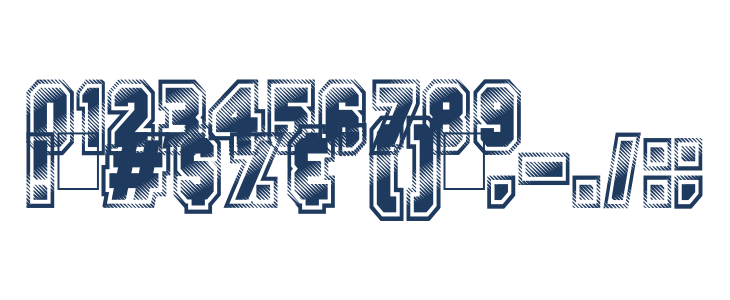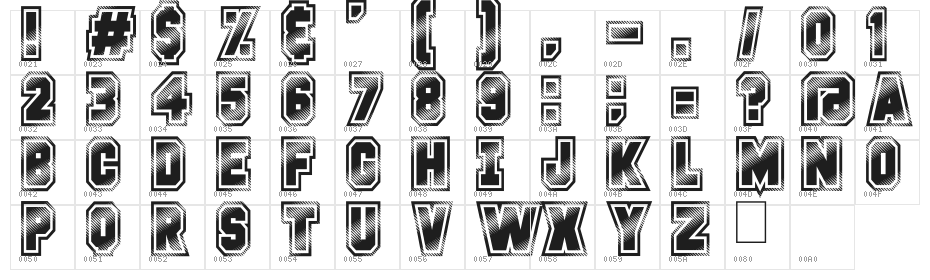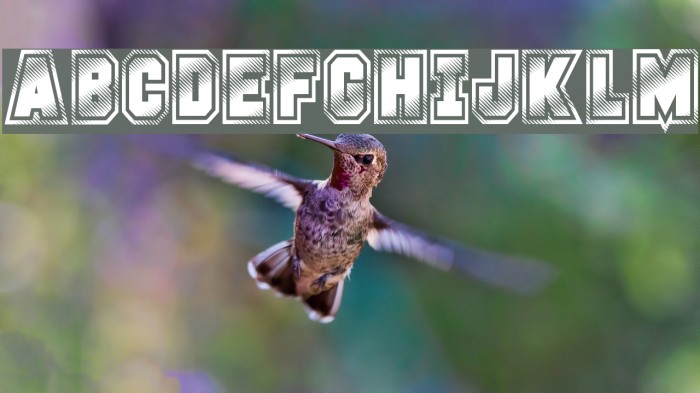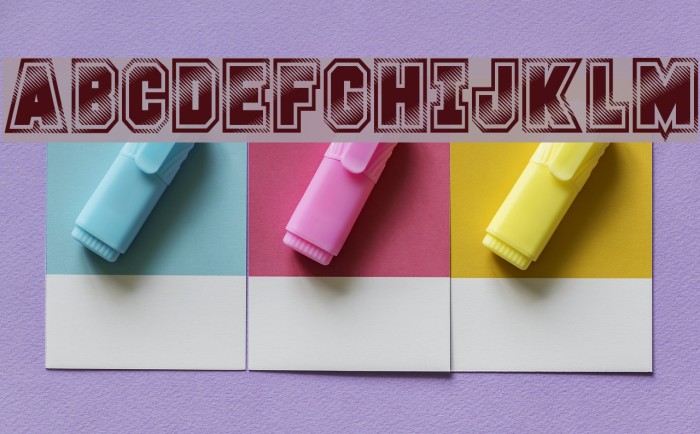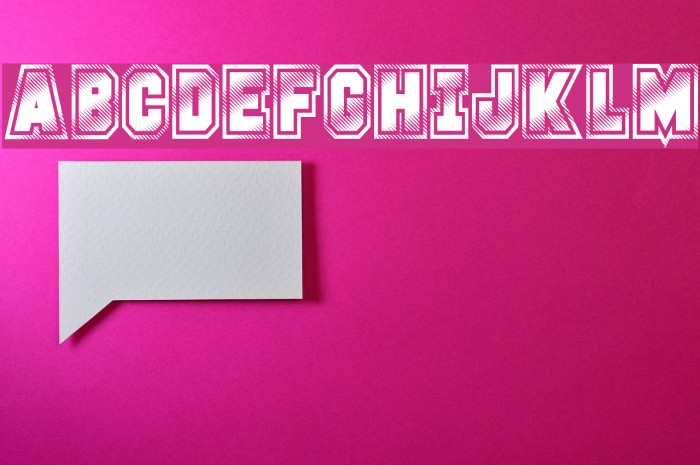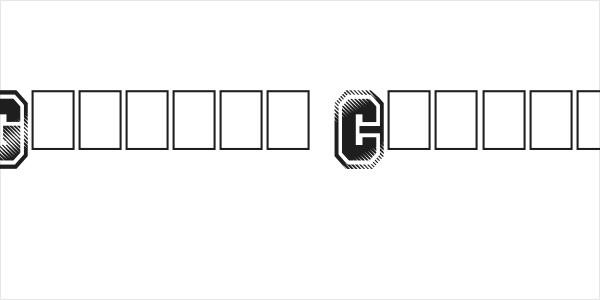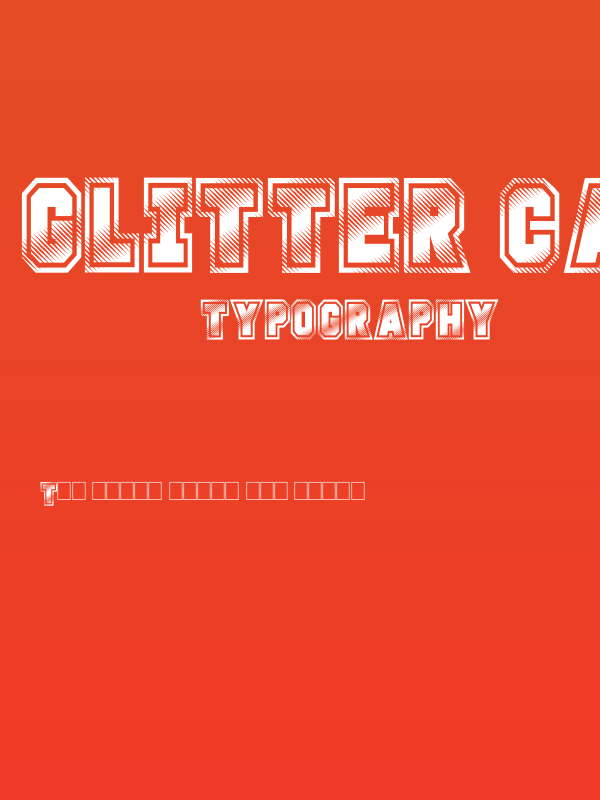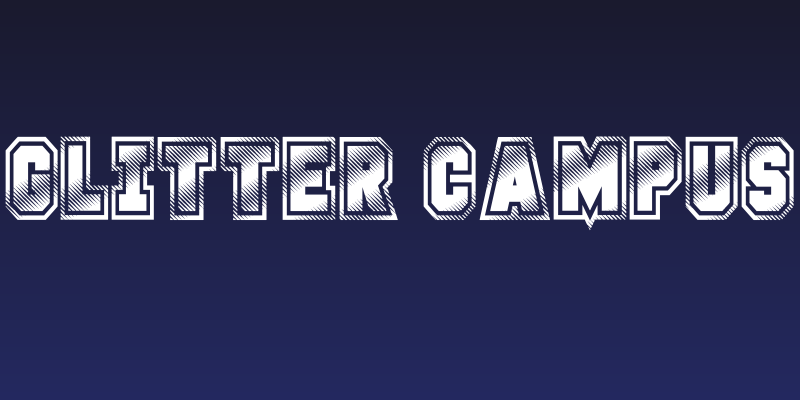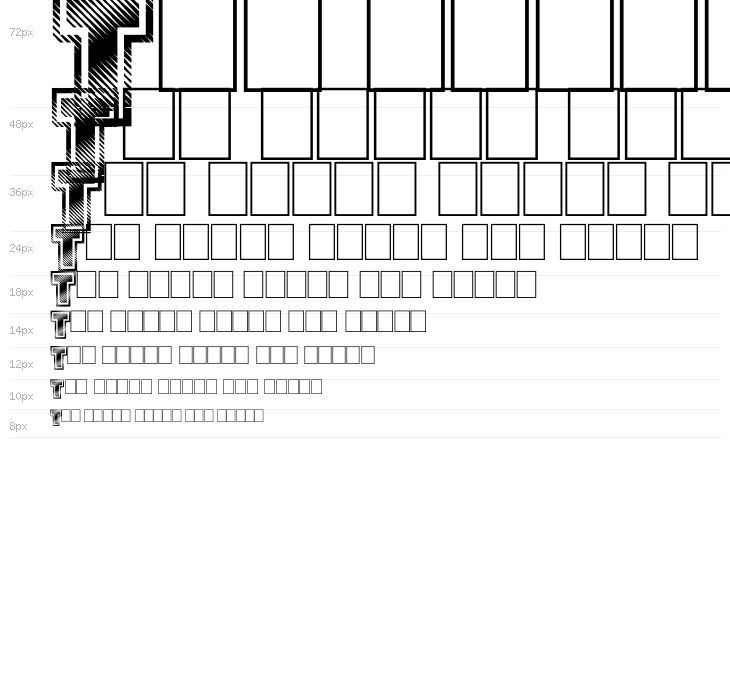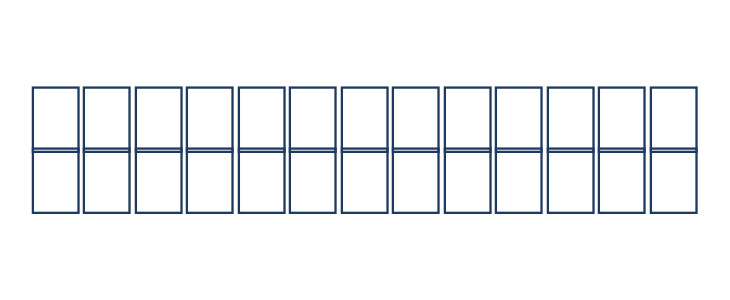
Glitter Campus Font
Glitter Campus Description
This bold and dynamic font features a striking 3D effect with a shadowed outline that gives it a sense of depth and movement. The uppercase letters are robust and commanding, with a playful yet structured design. The font's unique style is characterized by its thick strokes and the intricate detailing within each character, which includes a pattern of diagonal lines that enhance its visual appeal. The numerals and special characters maintain this consistent style, ensuring a cohesive look across all elements. This font is ideal for projects that require a bold statement and a touch of creativity.
Proposed ProjectsPerfect for posters, event flyers, video game titles, and branding materials that require a bold and eye-catching design.